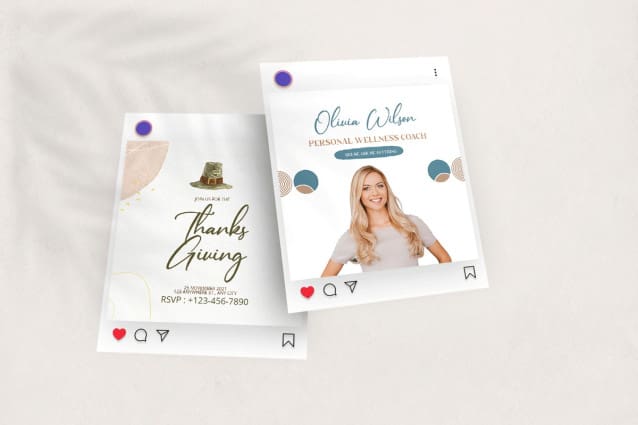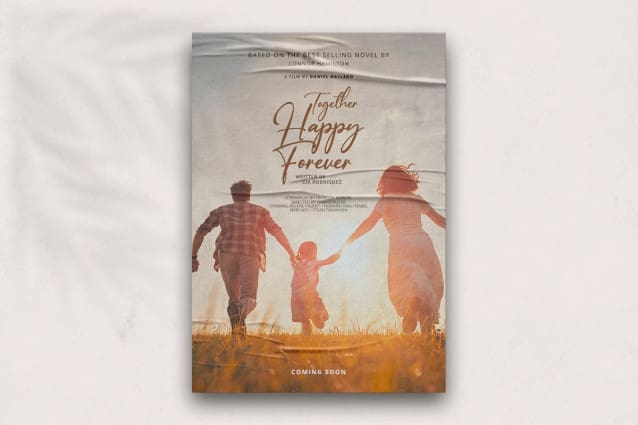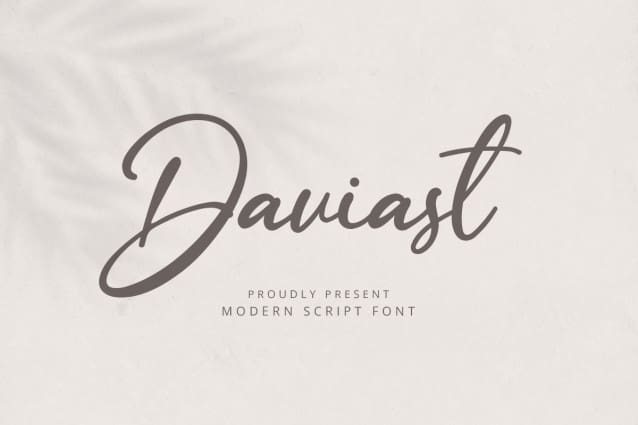
Daviast Handwritten Font
Daviast Handwritten Font is part of the Script & Signature font family. This font is a modern typeface and exudes a simple and elegant impression. This font looks like handwriting made using a brush with a continuous writing technique so that the letters connect beautifully.
However, compared to other typefaces, Daviast Handwritten Font has more limited uses. This typeface is more suitable for formal events such as weddings, classical music concerts, graduation ceremonies, etc. This typeface can use for making printing invitations, posters, or souvenirs.
A script typeface such as Daviast Classy Handwritten Font is one of the eligible fonts for use on promotional material for a new movie or song. This typeface is the best font for product brandings, such as snack packaging, brand tags, and store sales.
Our Daviast Handwritten Font doesn’t need many embellishments or extra work to look great on print and digital fonts. All you need is the skill to understand what combinations of good fonts and different typefaces work together. The best version of our fonts can bring out the right colors and themes.
Daviast HandwrittenFont is inappropriate when used in a long body of text with dense information for the reader because the shape is difficult to distinguish between letters and connect them. Therefore, Daviast Classy Handwritten Font is one of the eligible fonts.